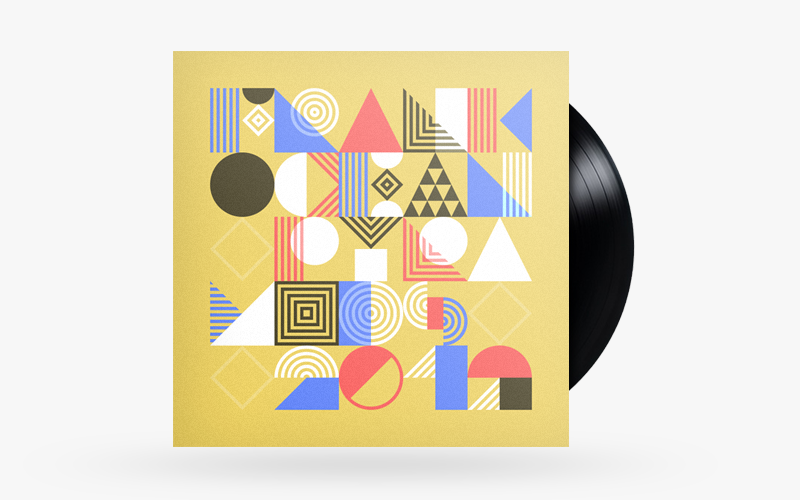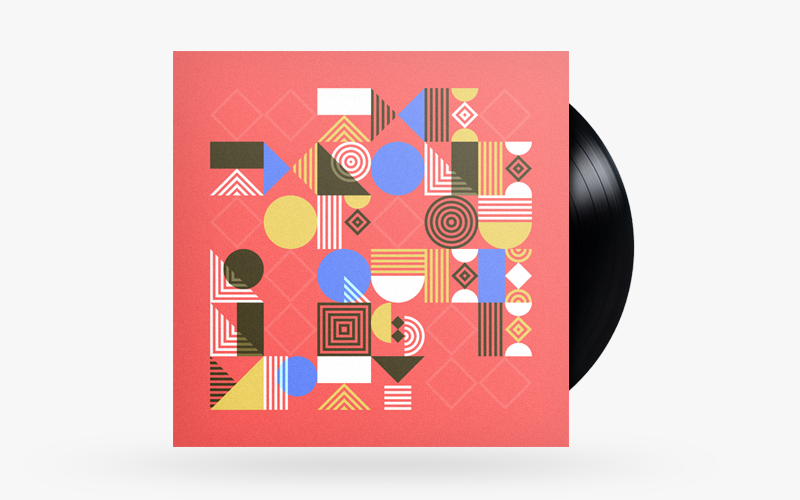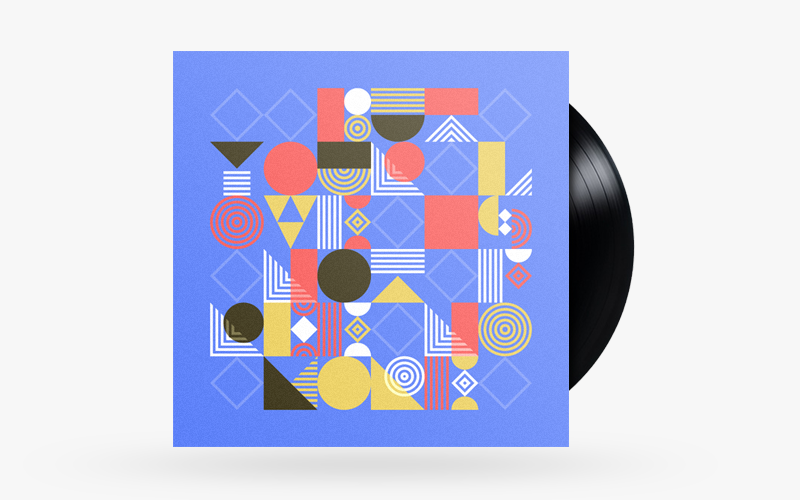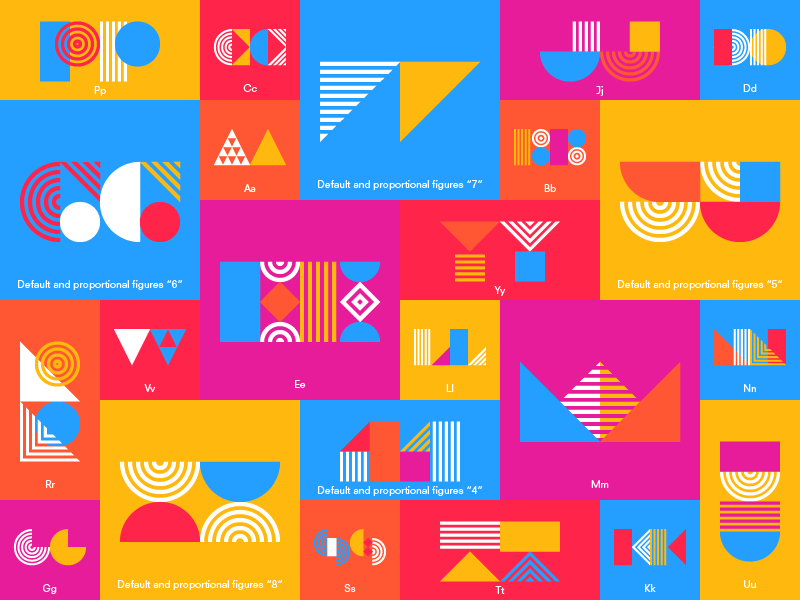
For my Forage Press submission I created a typeface that can create abstract visual by the lyrics of song.
Frank Ocean, Pyramids 2012
The throne of our queen is empty
But your love is not free no more